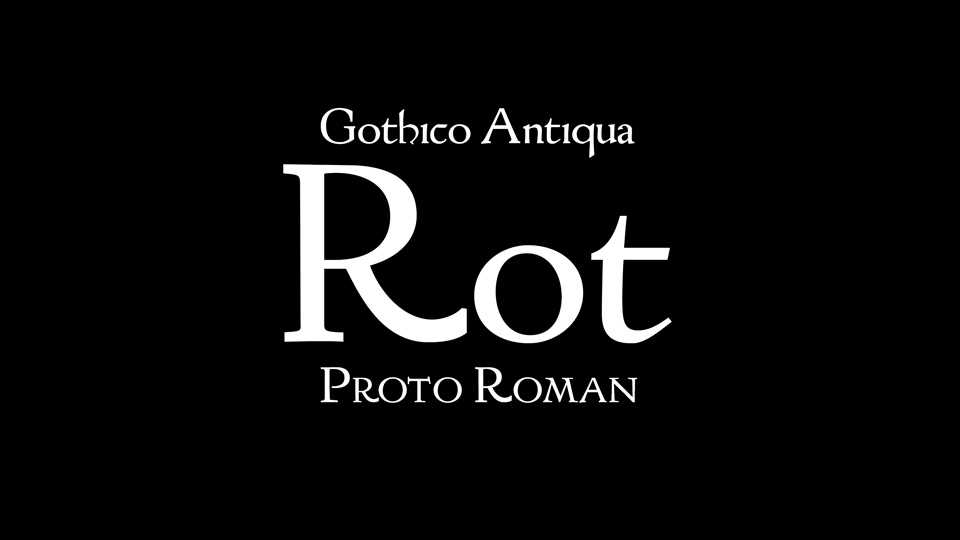
Download Rot font, Proto-Roman cut in Rome by Adam Rot for Dominicus de Sancto Geminiano’s Lecturae super secunda parte sexti Decretalium in 1471. Type design workshop at HBK Saar and Bibliothèque municipale de Metz, Sarrebrücken, December 2016.
Designer: ANRT Type